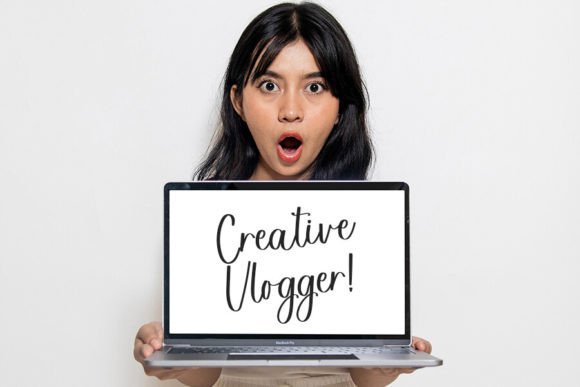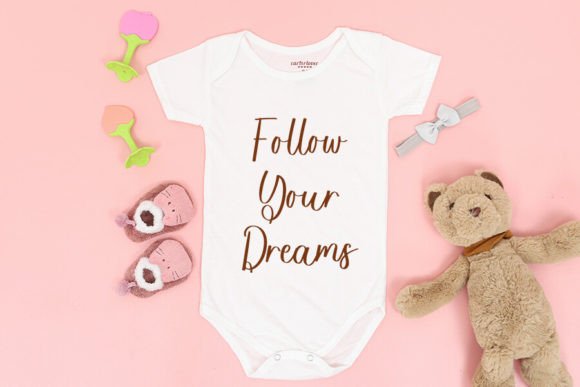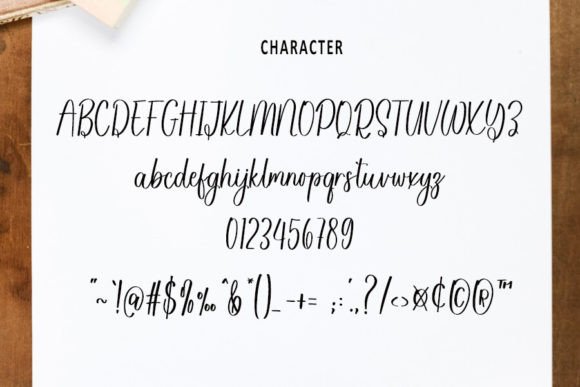
Introduction to Daily Holiday Font
As you sit down to design your holiday cards and gift labels, do you ever feel like something’s missing? That extra special touch that makes your creative project truly shine? For designers, finding the perfect font can be a challenge, especially when it comes to capturing the spirit of the season.
That’s where the Daily Holiday Font comes in – a festive and happy typeface that’s sure to bring a smile to your face and a touch of magic to your designs. With its decorative elements and unique flair, this high-quality font is the perfect design resource for anyone looking to add a little extra joy to their holiday projects.
Key Features of Daily Holiday Font
- Transparent background for seamless integration into your design
- Perfect for use in digital designs, such as social media graphics, web pages, and presentations
- Includes a range of characters, including uppercase and lowercase letters, numbers, and punctuation
Honest Review: Daily Holiday Font
I recently came across the Daily Holiday Font, and I must say, it’s a fantastic addition to any designer’s toolkit. With a free download, this high-quality font is a great resource for designers looking to spice up their creative projects.
Here are some of the things that work well: ✨
- Unique and playful characters that are perfect for festive designs
- Transparent background, making it easy to layer over other design elements
- High-quality design that’s perfect for digital and print projects
However, there are a few limitations: ⚠️
- The font may not be suitable for formal or professional designs, due to its playful nature
- The character set may not be as extensive as other fonts, which could be a limitation for some designers
Overall, I’m really impressed with the Daily Holiday Font. It’s a fun and creative addition to any design resource library, and I can see it being used in a variety of projects, from holiday cards to social media graphics.
How to Use Daily Holiday Font
The Daily Holiday Font is a unique and creative design resource that can elevate any project. With its high-quality and transparent background, it’s perfect for adding a touch of personality to your work.
Using the Daily Holiday Font in Design Software
Tips for Getting the Most Out of the Daily Holiday Font
To get the most out of the Daily Holiday Font, try using it in bold or italic font styles to add emphasis to your text. You can also use it in combination with other fonts to create a unique and eye-catching design.
The Daily Holiday Font is perfect for a variety of projects, including:
- Designing greeting cards and invitations
- Creating social media graphics and posts
- Developing branding and marketing materials
Alternatives to Daily Holiday Font
1. Holiday Script Font
Holiday Script Font is a high-quality, elegant script font perfect for creating a festive atmosphere in your designs. It features a transparent background and is ideal for use in invitations, greeting cards, and other creative projects.
Compared to Daily Holiday Font, Holiday Script Font has a more refined and sophisticated look, making it suitable for more formal and professional designs.
2. Jolly Font
Jolly Font is a fun and playful font that is ideal for creating a lively atmosphere in your designs. It features a free download option and a transparent background, making it easy to use in various creative projects.
Compared to Daily Holiday Font, Jolly Font has a more casual and relaxed look, making it suitable for use in social media graphics, posters, and other informal designs.
3. Festive Font
Festive Font is a high-quality font that is perfect for creating a festive and celebratory atmosphere in your designs. It features a transparent background and is ideal for use in invitations, greeting cards, and other creative projects.
Compared to Daily Holiday Font, Festive Font has a more modern and sleek look, making it suitable for use in digital designs, such as social media graphics and website headers.